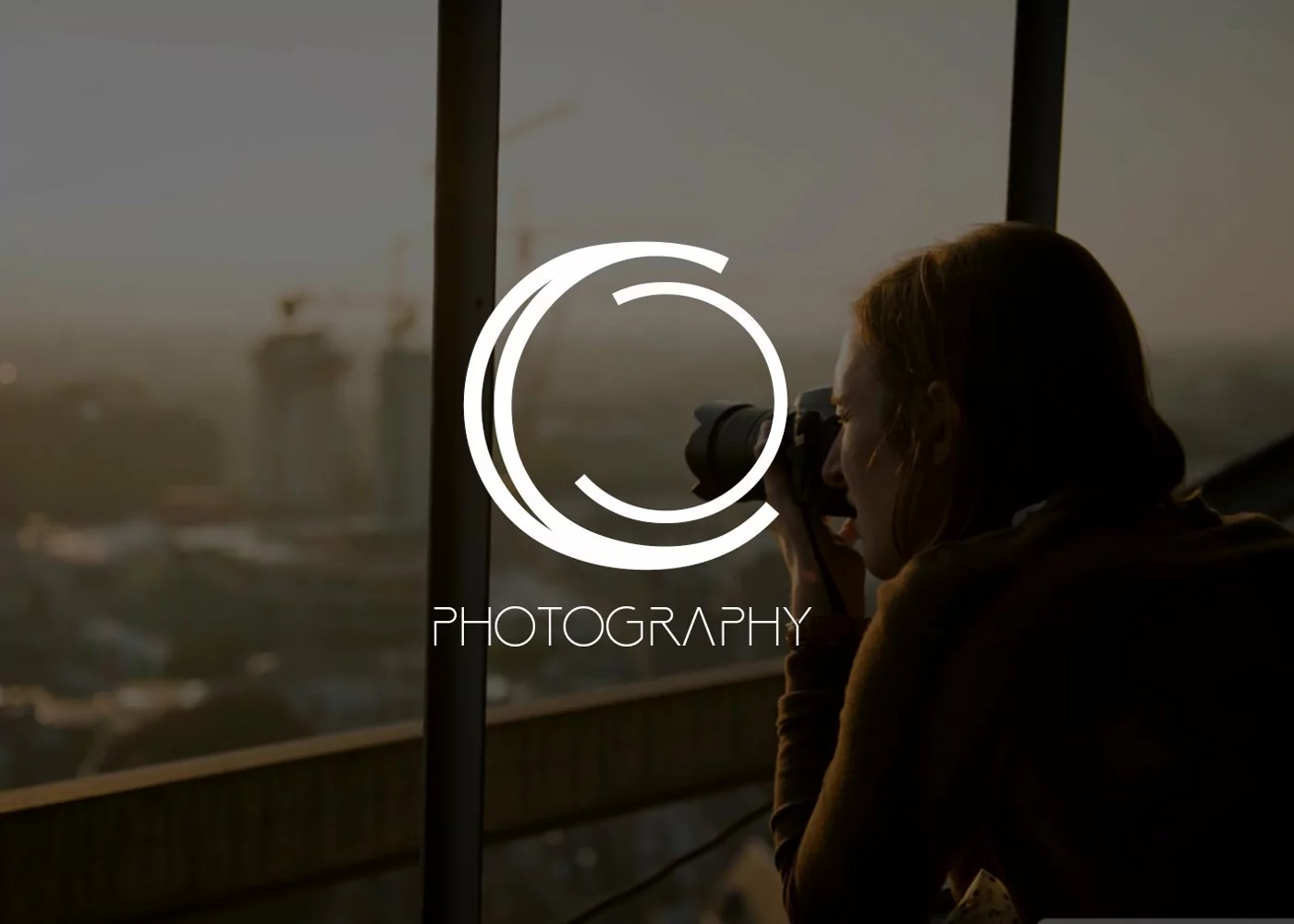
Cebo Typeface a minimalis typeface and awesome character with 5 different style, light, twin, expand, shadow and bold. Cebo it’s perfect for namecard, poster, logo, magazine, cover, banner, tshirt and headers, or even large-scale artwork. Files Included: - Cebo Light (ttf & otf) - Cebo Twin (ttf & otf) - Cebo Expand (ttf & otf) - Cebo Shadow (ttf & otf) - Cebo Bold (ttf & otf Thank you for checking and i hope you enjoy it. Always put your heart into it and don’t worry to try. I hope you have as much fun using it as i did making it Khurasan --------------------------------